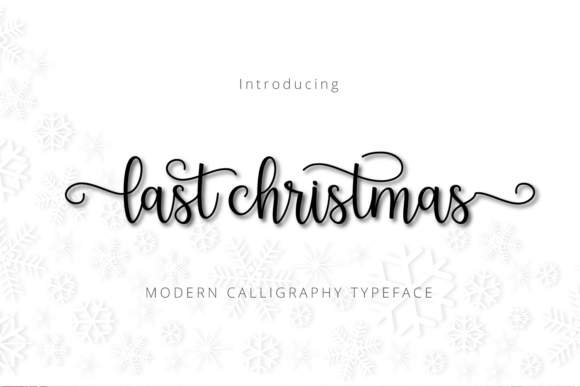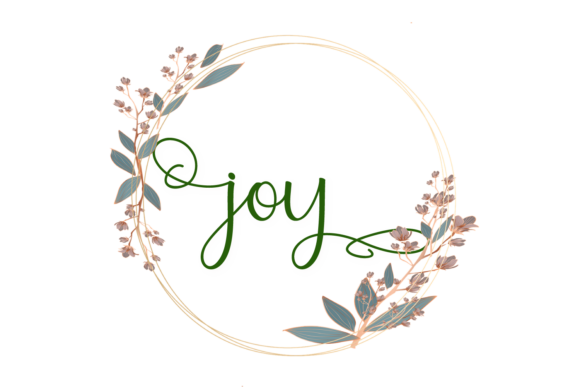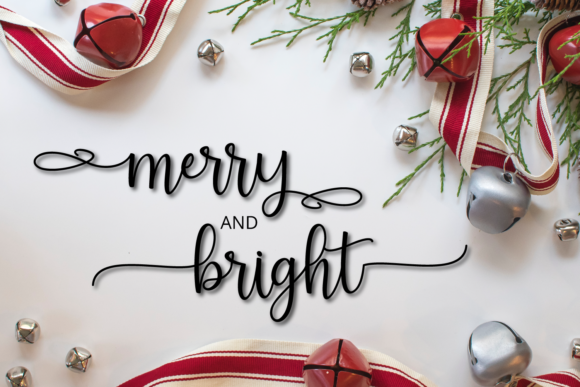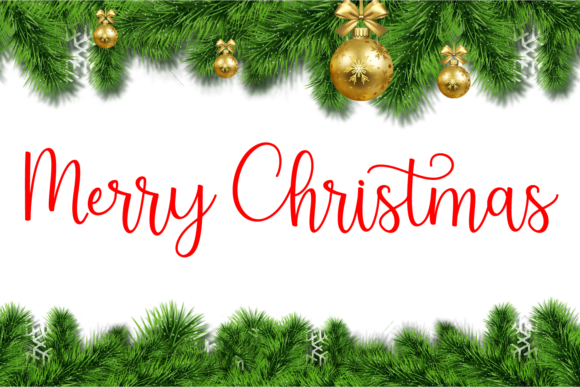
Last Christmas Script Font
About Last Christmas Script Font
Last Christmas Script is a lovely and timeless handwritten font. It is the best choice for creating eye catching logos, branding and quotes. This font is PUA encoded which means you can access all glyphs and swashes with ease!